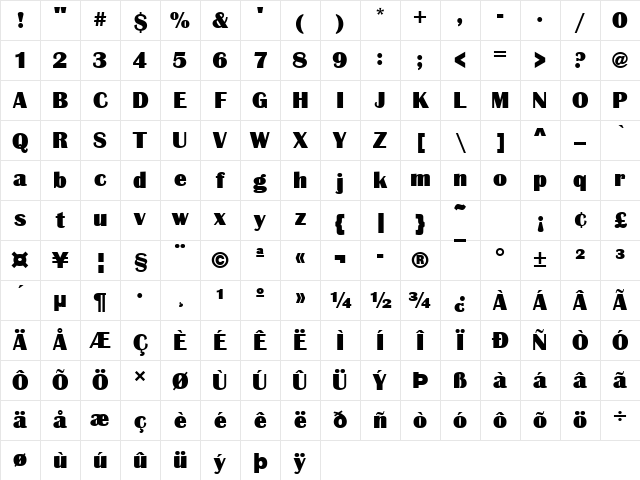
Britannic Becker Ultra Regular Free Font
Britannic Becker Ultra Regular
Complete Britannic Becker Ultra Regular glyph index. Displaying only characters natively supported by Britannic Becker Ultra Regular font.
Design Context for Britannic Becker Ultra
Britannic Becker Ultra is a composed and adaptable typeface that performs quietly and consistently across a wide range of design contexts.